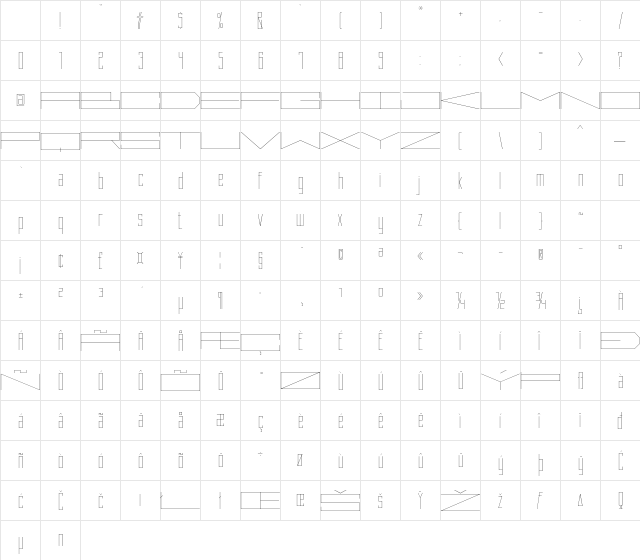
Complete Why Square IN LT Std Ultra Thin glyph index. Displaying only characters natively supported by Why Square IN LT Std Ultra Thin font.
Why Square IN LT Std is a composed and adaptable typeface that performs quietly and consistently across a wide range of design contexts. Its slender proportions lend an understated elegance to any composition.